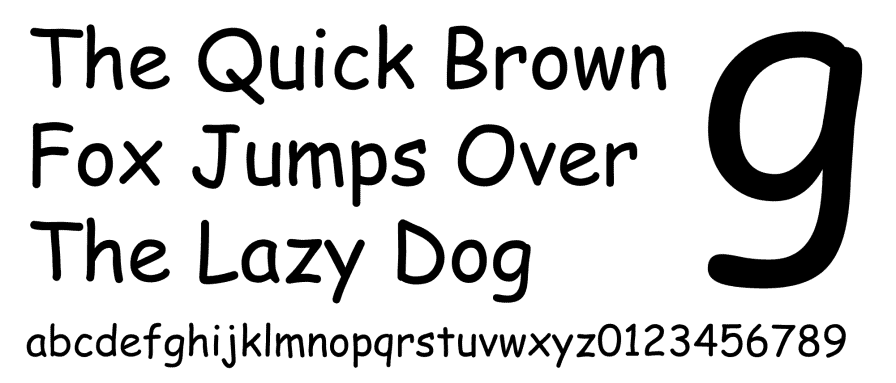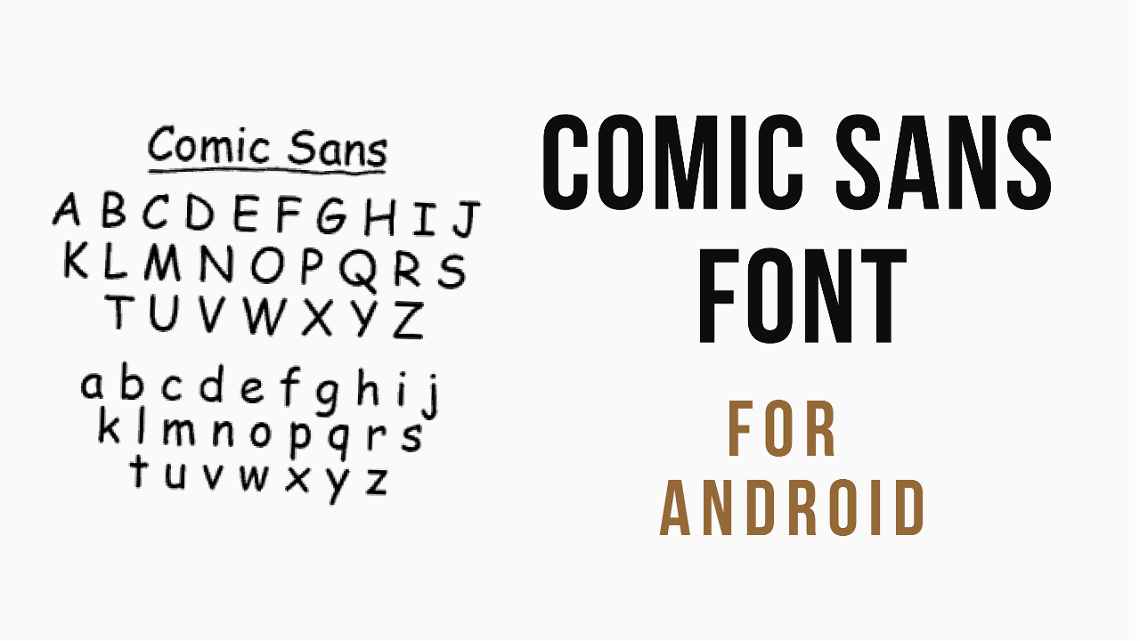
The comic sans font is basically one of my favorite fonts. The Google product sans and comic sans are two of my favorite. Comic Sans font is a casual script designed by Vincent Connare. Later it was released by Microsoft Corporation in 1994. The design is inspired by comic book writing, like the writing used in Children’s reading materials.
Comic Sans Font For Android
Talking about some history of this font, it was really criticized for its use in formal documents. Because of its Comic design, the widespread use of this font was criticized. But it still remains one of my favorite fonts now. You all know the popular Doge memes right? The popular Shiba Inu Dog memes were popular back in 2010 and they are still popular now. The Comic Sans Font was used in those memes.